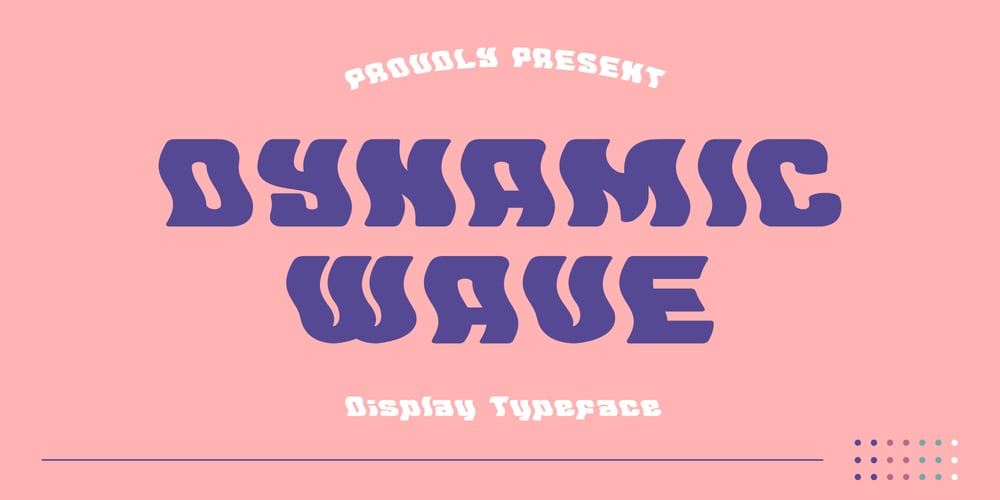
Dynamic Wave Font Family was designed by Eka Pamuji and published by EKNOJI. Dynamic Wave contains 1 styles and family package options. DYNAMIC WAVE – Display Retro FontIt is perfect Bold Display Font for branding, logo, every other design which needs a Dsiplay.What you get? Character set A-Z Character set a-z Support multi-language glyphs Works on PC & Mac Simple installationsAccessible in the Adobe Illustrator, Adobe Photoshop, Adobe InDesign, even work on Microsoft Word.Please kindly message us for any question or issue about our product. Hope you love it!!